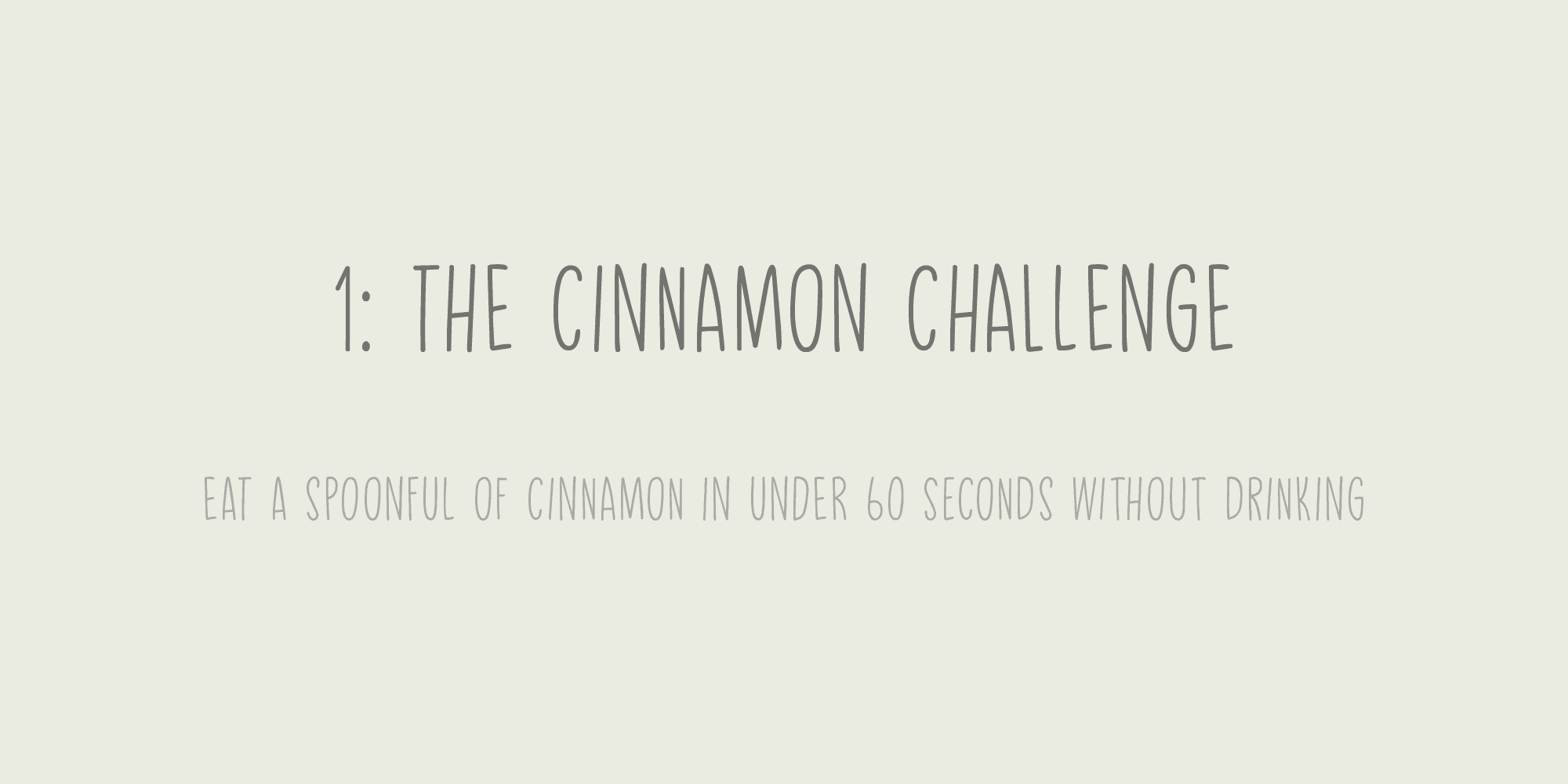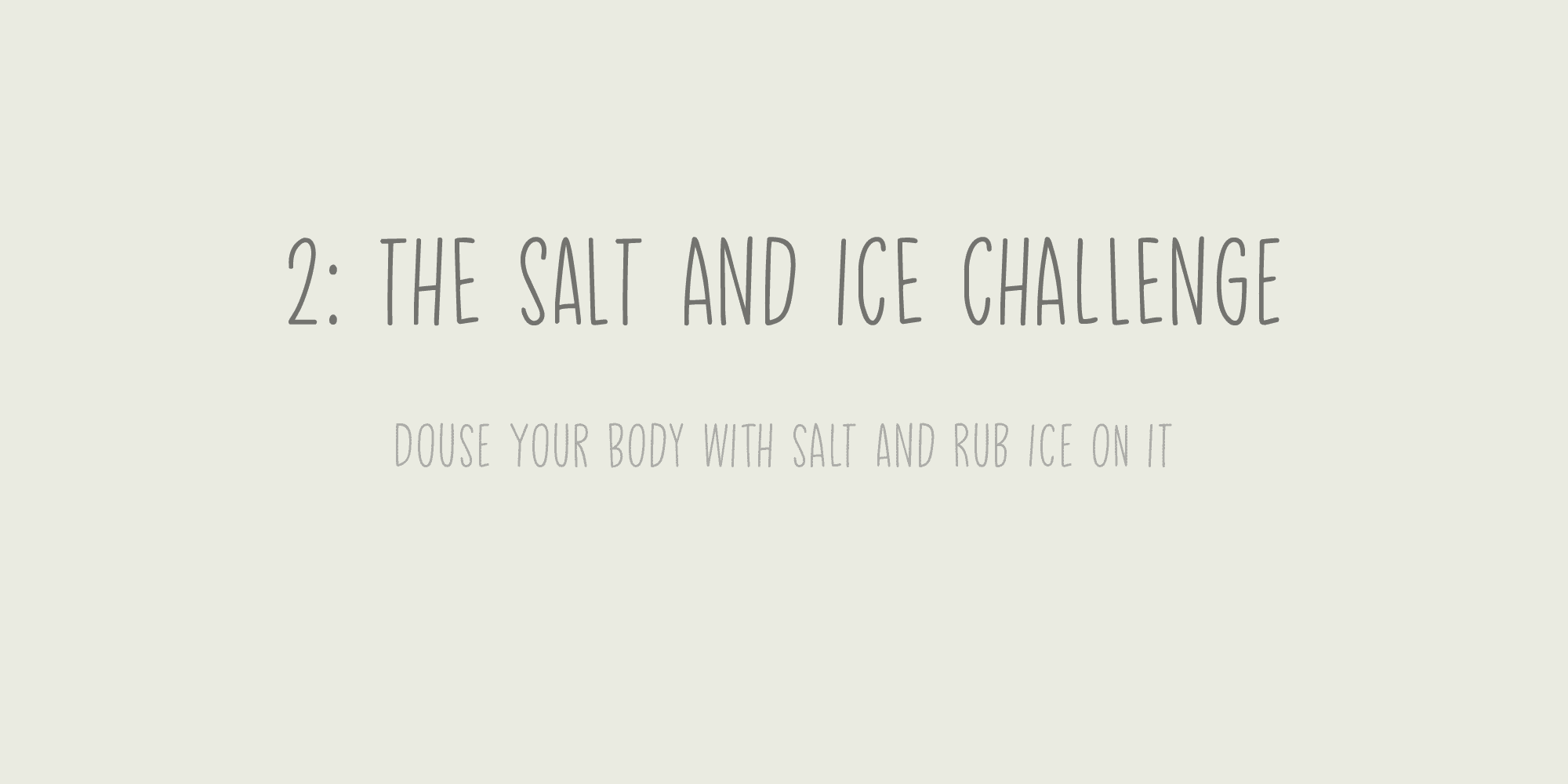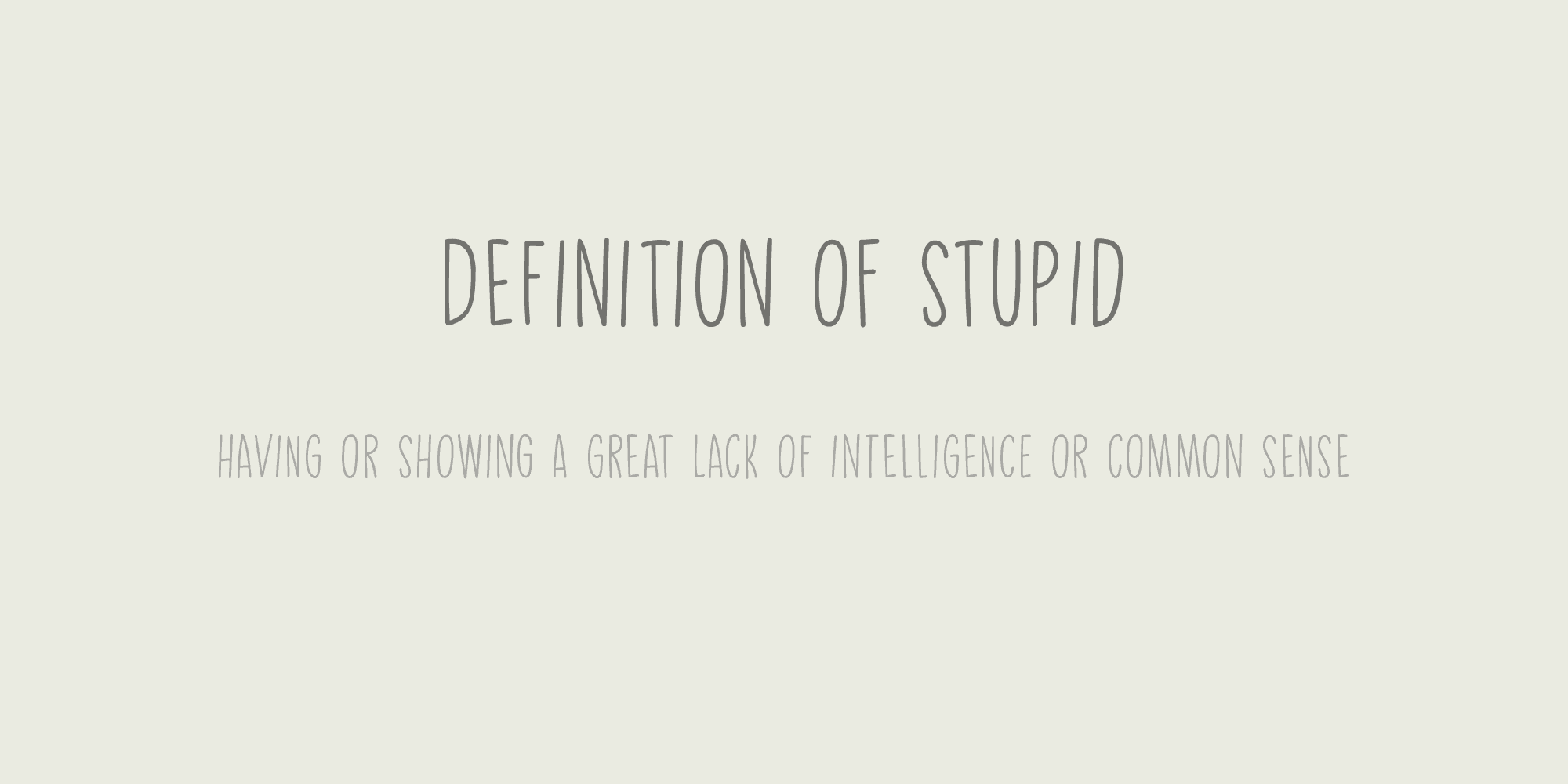
Of course, the word ‘challenge’ was misused by the internet. Not too long ago, there seemed to be and endless stream of crazy challenges that ended up hurting or even killing a few people.
Daily Challenge font is none of the above: it is a clean cut, 100% handmade, all caps font. The only challenge here is how to adapt your design so it fits this font perfectly… ;-)